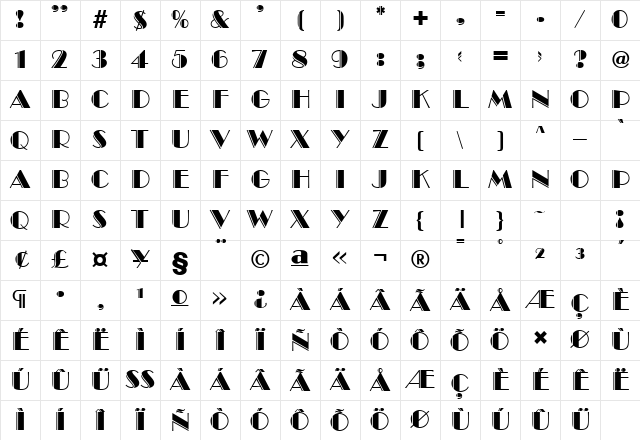
Invite Engraved SF is built around its visual character rather than neutral utility - its distinctive forms are designed to make an impression at display sizes.
Font Pairing: Pair with a clean neutral sans-serif for body copy to let Invite Engraved SF's character lead without overwhelming the composition.
Pro Tip: Use Invite Engraved SF exclusively at display sizes - it was designed to be seen, not read at length. Let a neutral companion handle body copy.